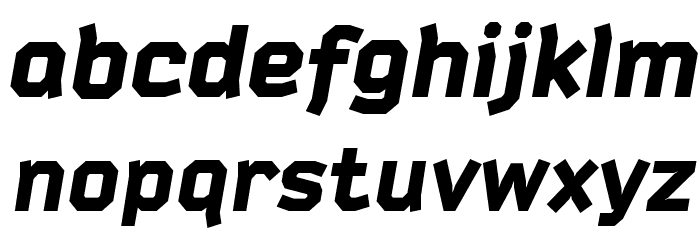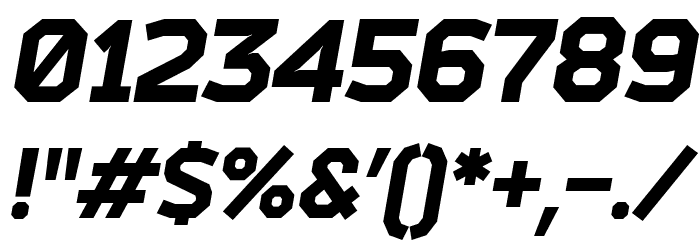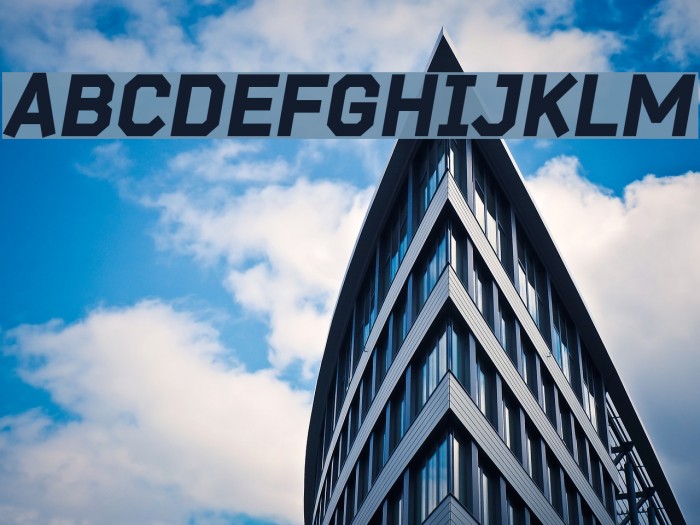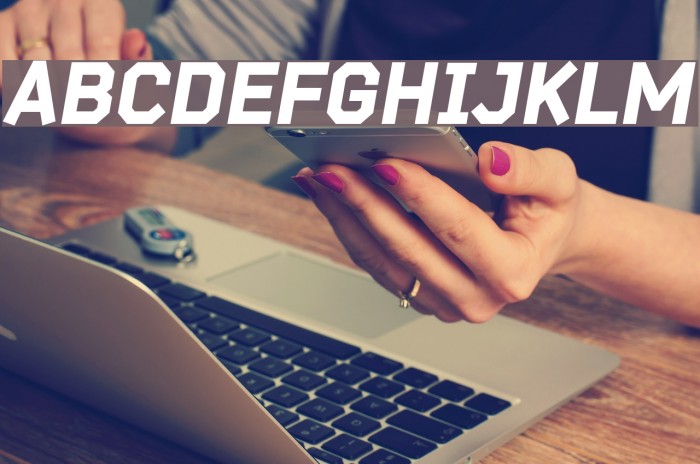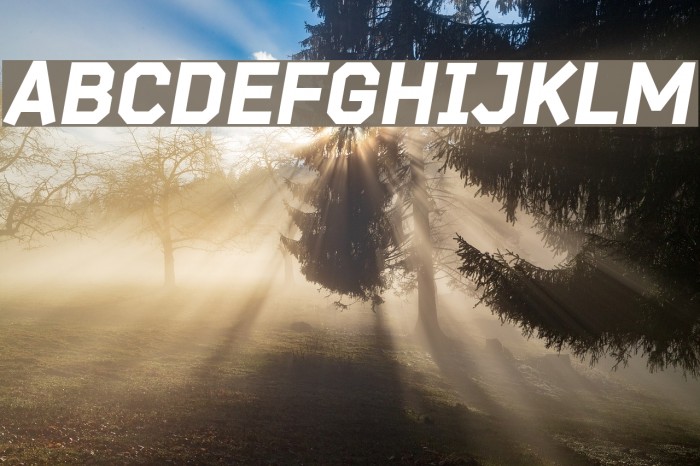
Bender-BlackItalic Font
This font exhibits a bold and dynamic style with a strong italic slant, giving it a sense of motion and energy. The characters are robust and angular, featuring sharp edges and a geometric structure that conveys a modern and assertive appearance. The uppercase and lowercase letters maintain a consistent weight, enhancing readability while preserving a distinctive look. The numerals and special characters follow the same bold and angular design, ensuring uniformity across all glyphs. The font's overall aesthetic is both contemporary and impactful, making it suitable for attention-grabbing designs.
A bold, italic, and angular font with a modern and dynamic style.
- Weight: Black Italic
- Proposed Projects: Ideal for sports branding, dynamic posters, modern advertising, and impactful headlines.